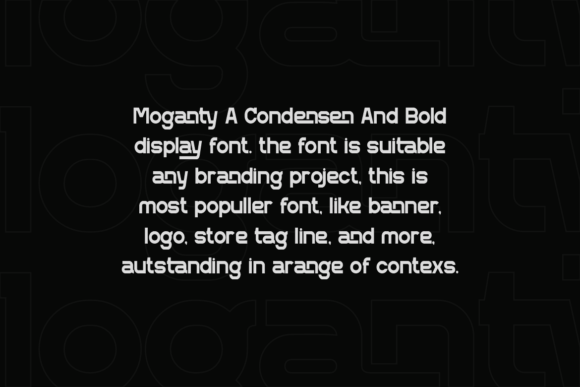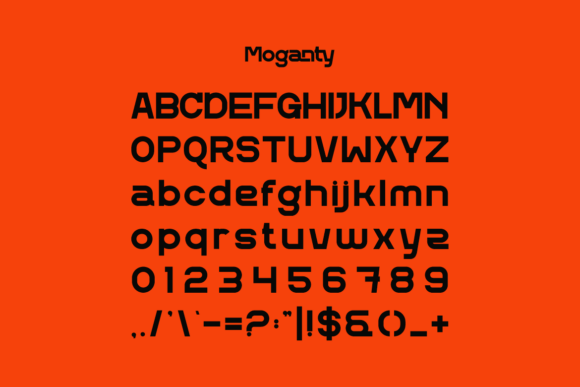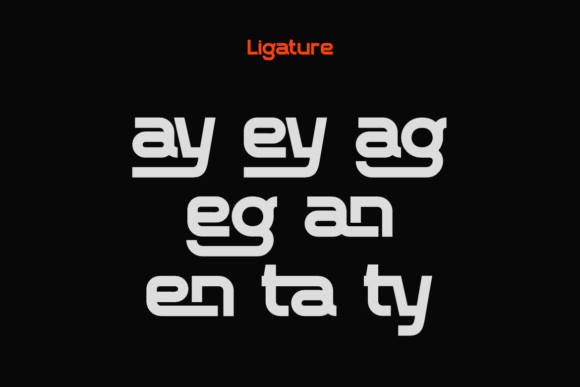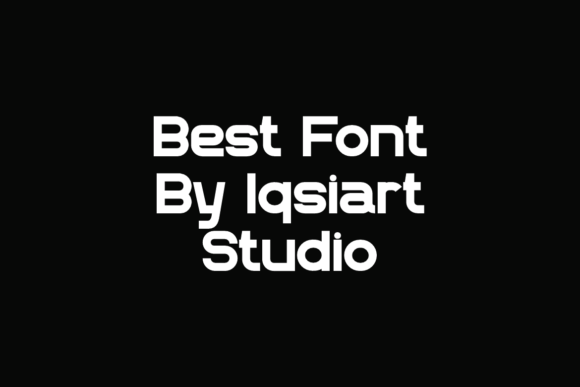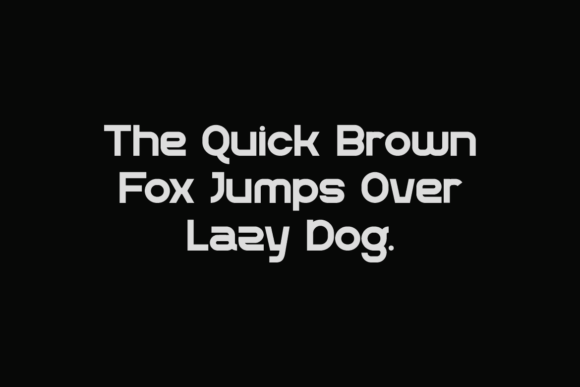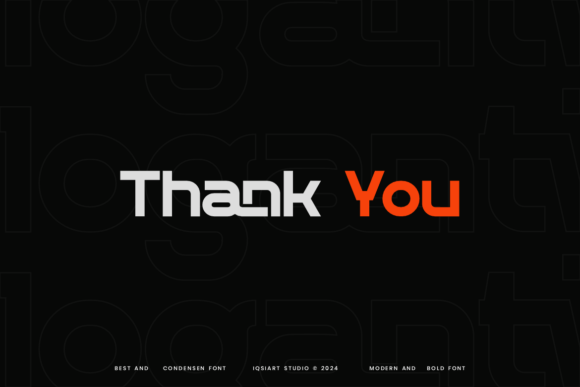
Introduction to Moganty Font Font
Fonts play a crucial role in design, and the Moganty Font font is a typeface that brings both character and versatility to any project. Whether you’re working on a branding project, a website, or a print design, the Moganty Font font offers a unique style that can elevate your work.
Moganty is a bold, modern sans-serif font with clean lines and strong, solid shapes.
Itβs perfect for making a statement in headlines, logos, and designs that need to stand out Its simple yet powerful style makes it easy to read and eye-catching.
Key Features of Moganty Font Font
Why Choose Moganty Font Font?
The Moganty Font font is more than just a typeface β it’s a design tool that helps you communicate your message with style and clarity. Its unique character set and versatile design make it suitable for a wide range of applications, from elegant invitations to bold headlines.
With its carefully crafted letterforms and balanced proportions, the Moganty Font font ensures readability and visual appeal across all mediums.
What makes Moganty Font font special?
The Moganty Font font stands out with its unique design, exceptional readability, and versatility across various design applications.